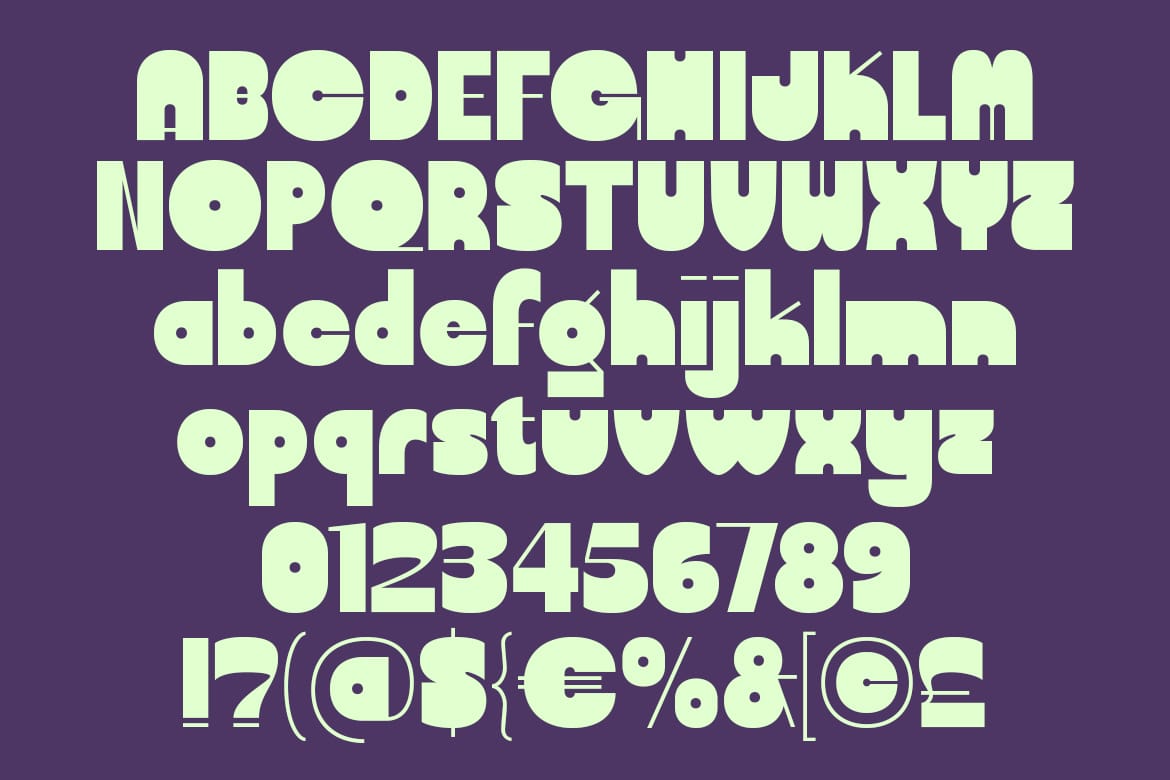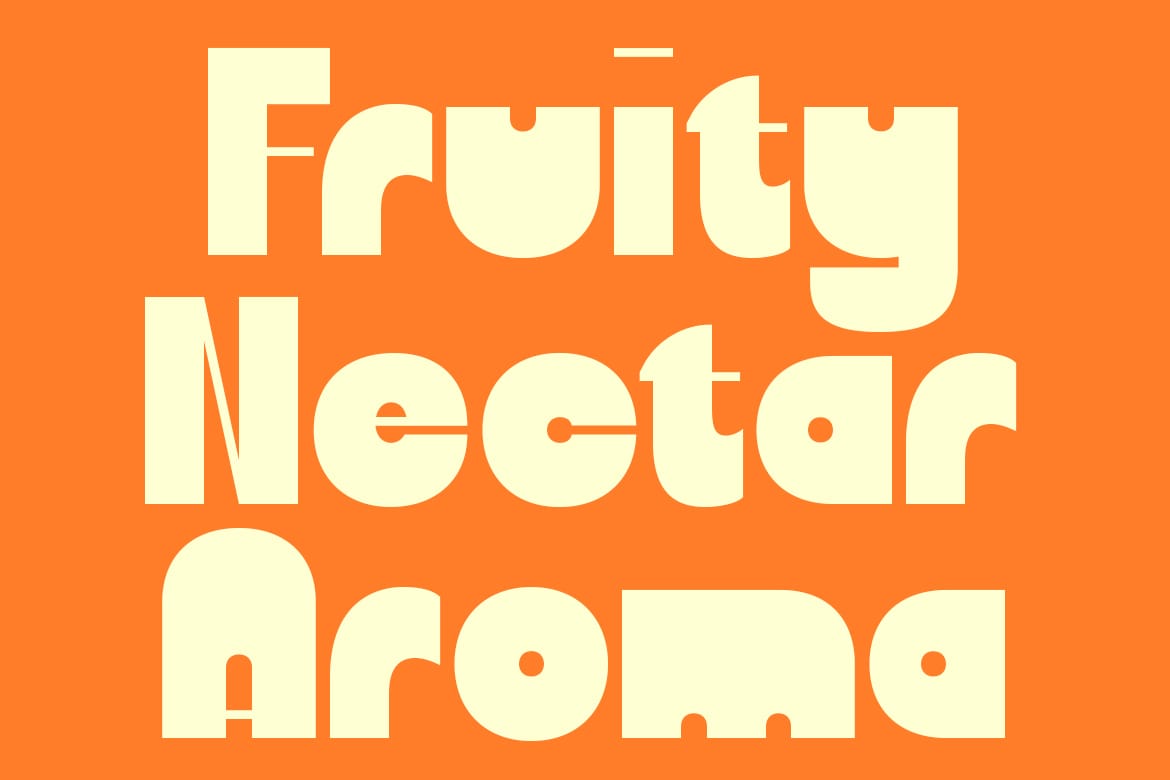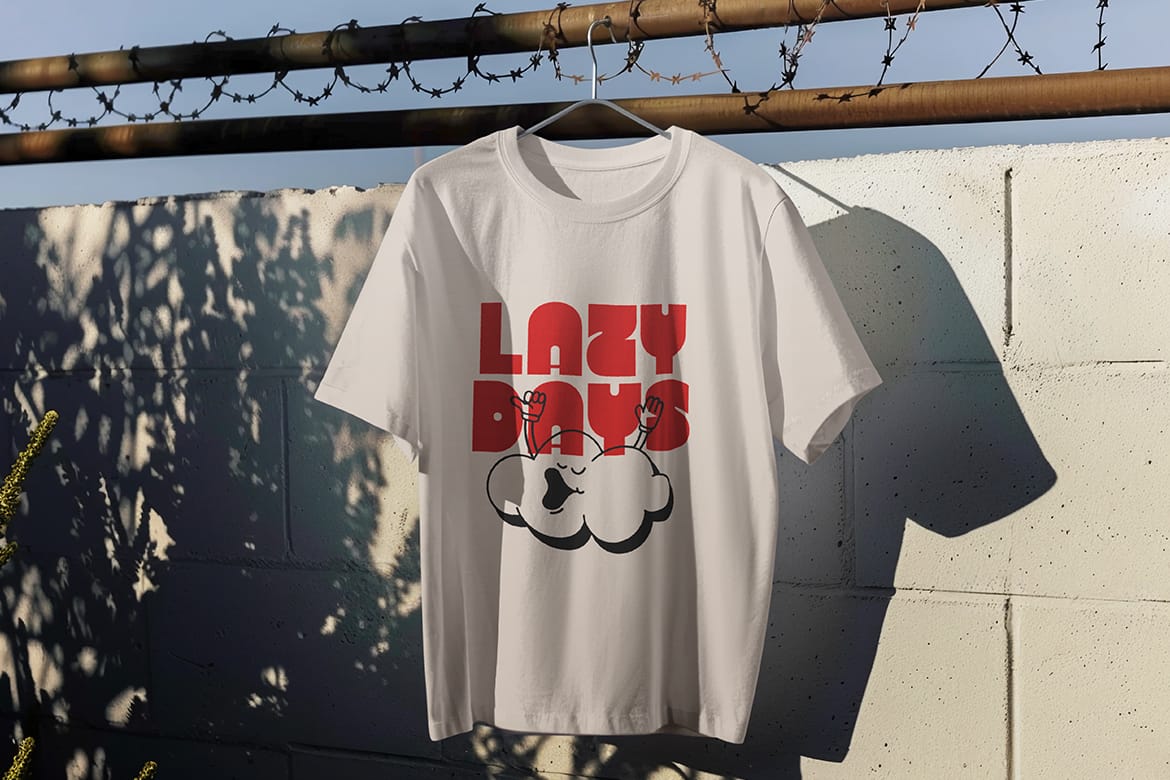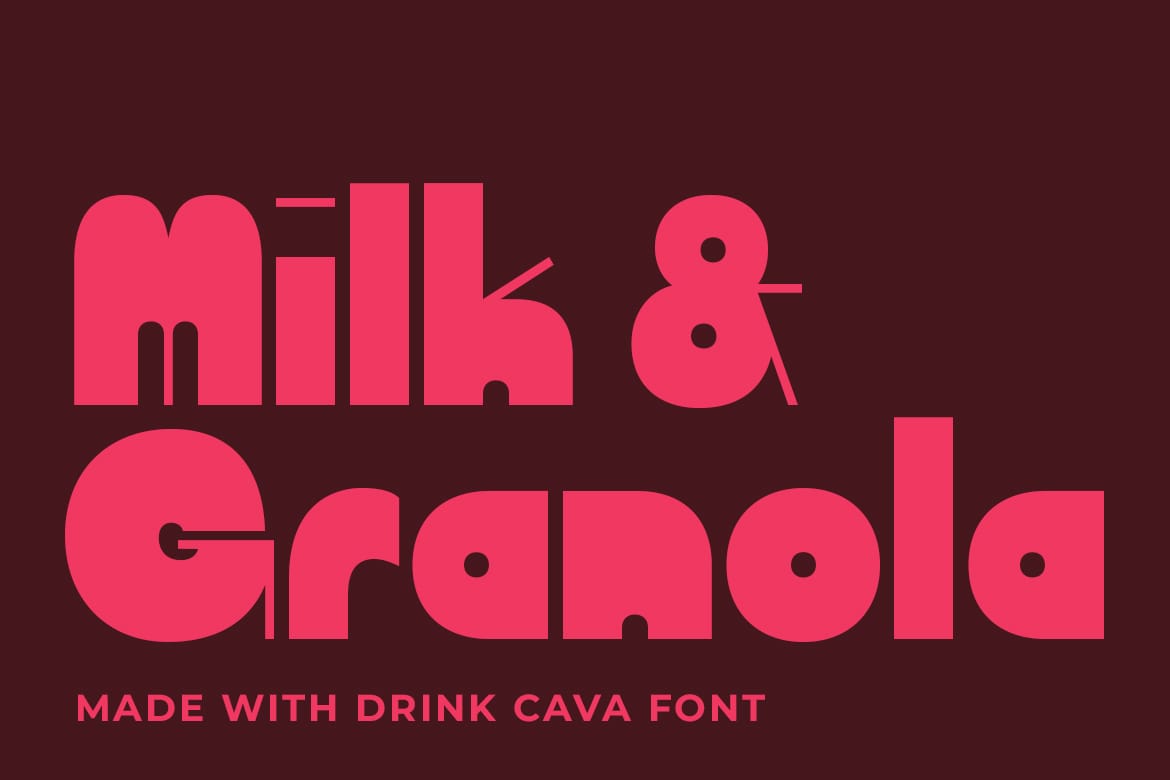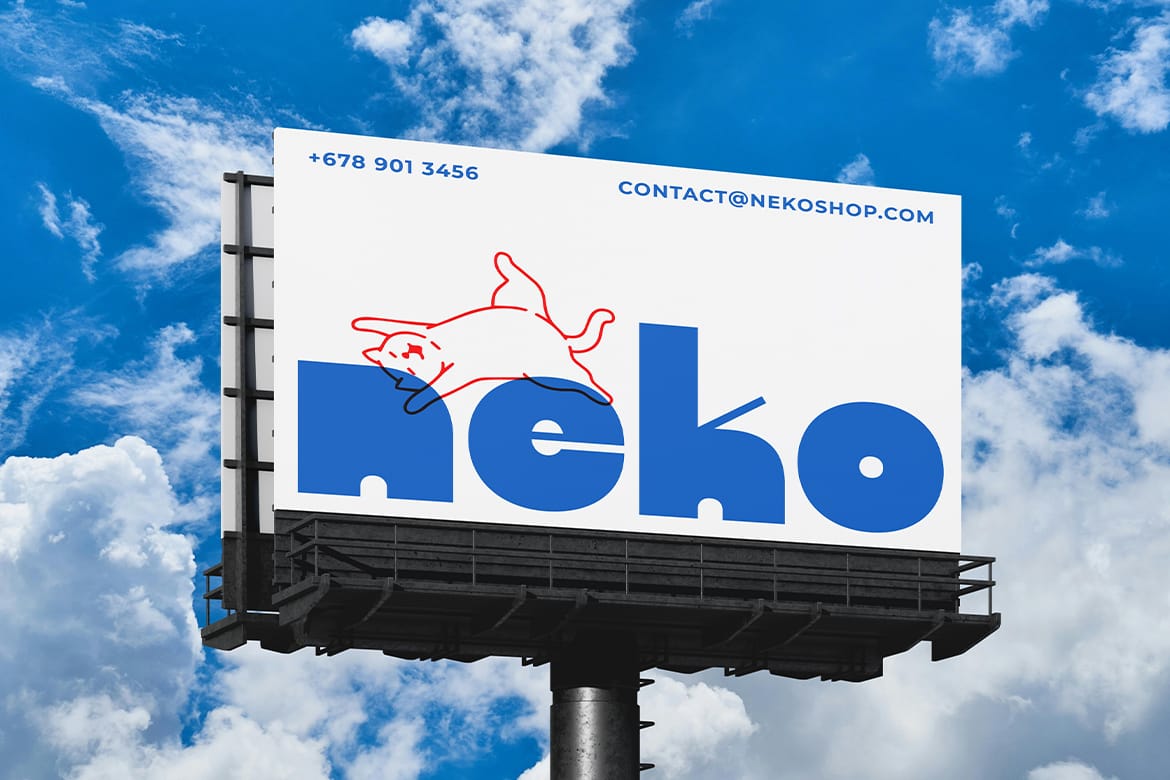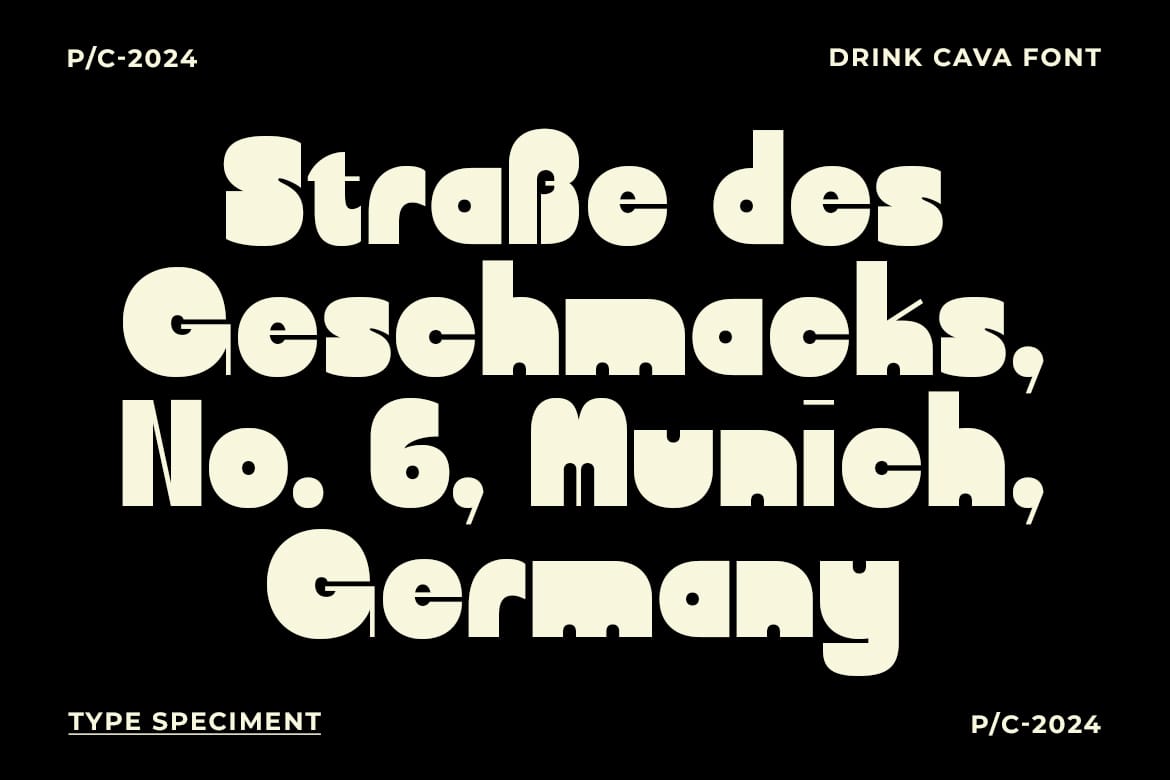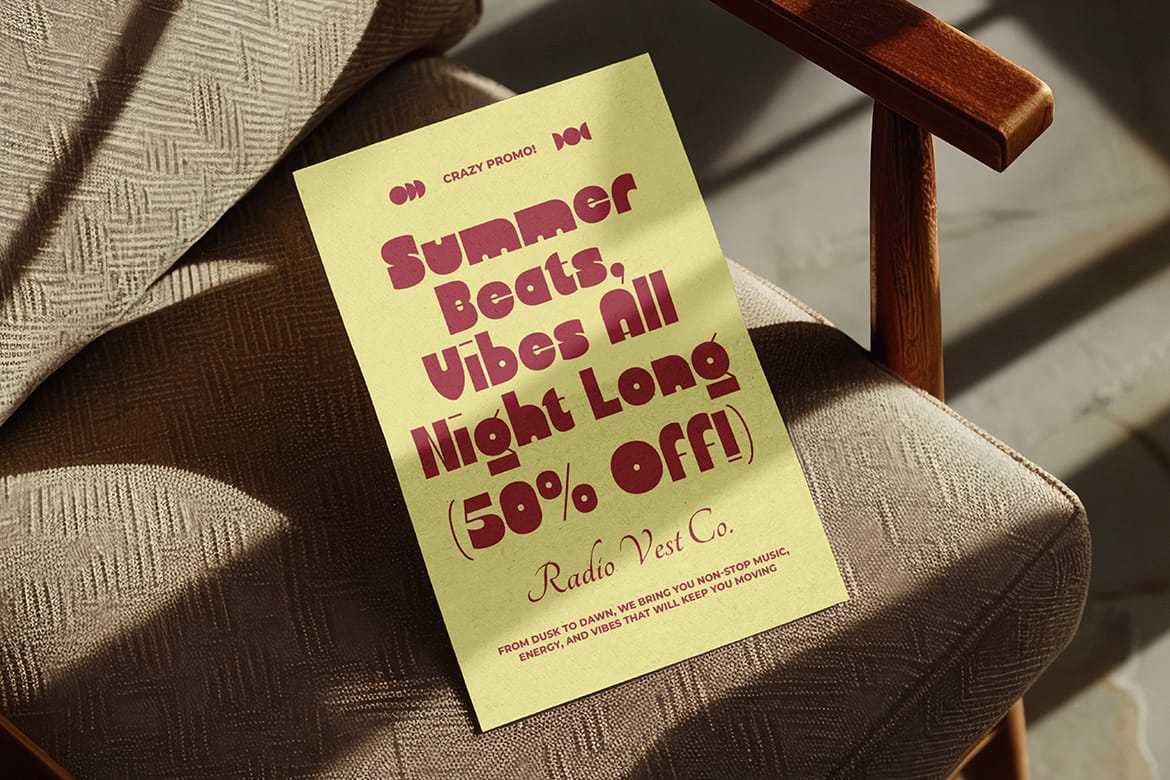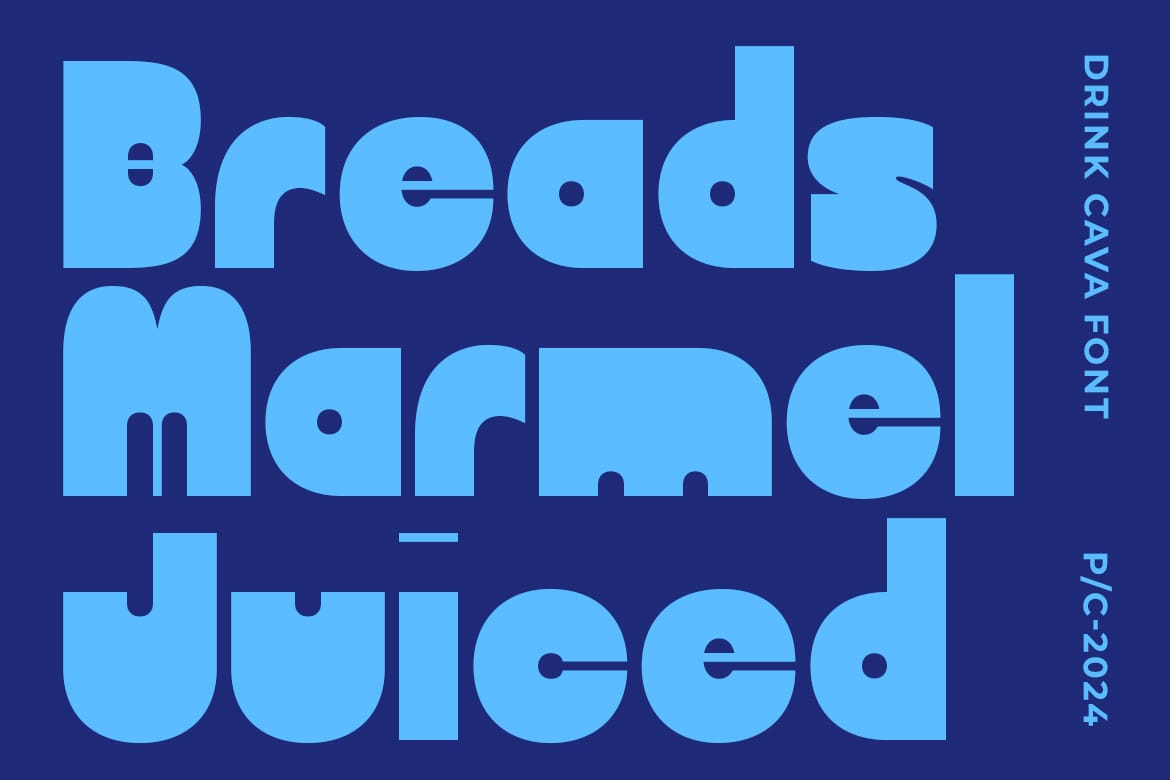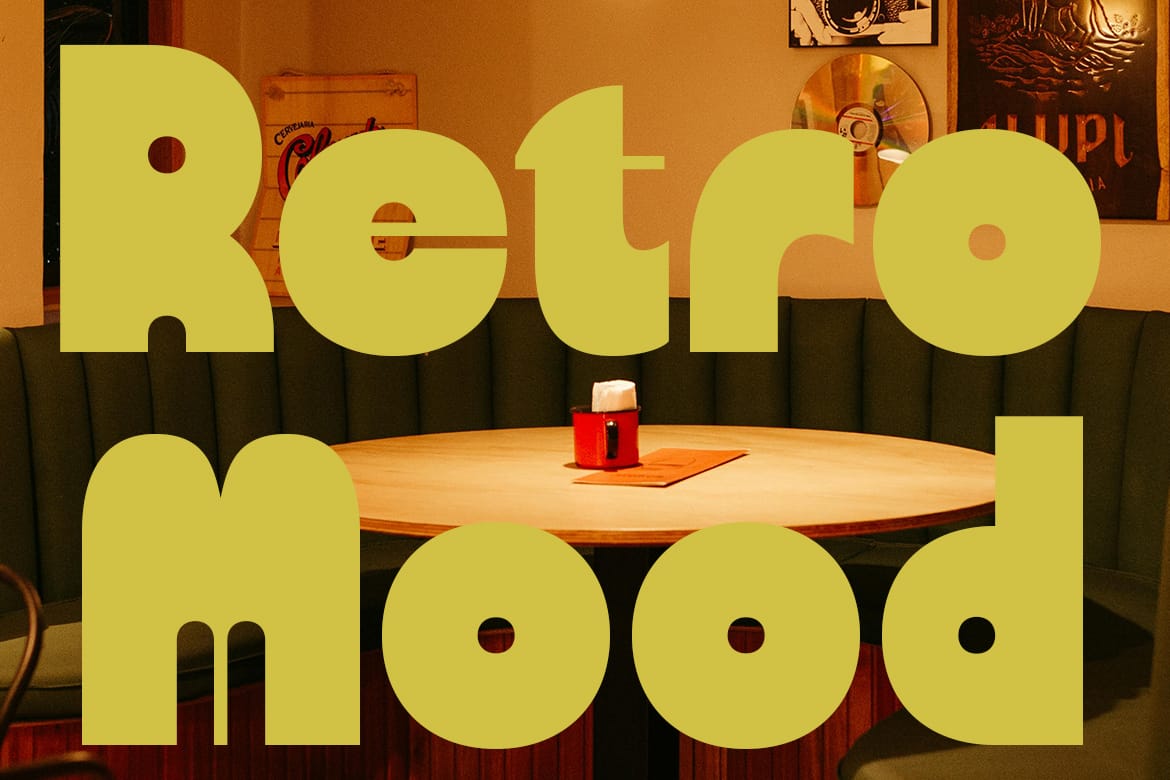
Introducing Drink Cava, a bold font with slim details on certain characters, making it daring and unique. Playful with a retro-modern vibe, it's perfect for posters, branding, and logos.
Features: Uppercase, Lowercase, Numeral, Punctuation & Multilingual.
- Bold font with slim detail accents
- Playful retro-modern vibe